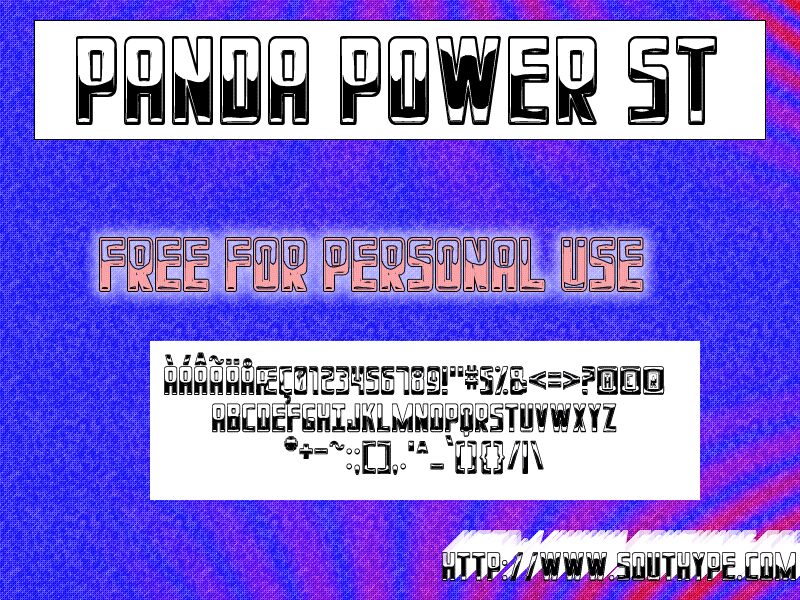
Panda Power St is a bold, eye-catching font that exudes an air of playfulness and confidence. Designed by Southtype, this decorative display typeface boasts a distinctive aesthetic, with its thick, condensed letterforms evoking a sense of strength and purpose. The angular, geometric shapes give the font a modern, almost industrial feel, while the rounded edges and playful curves lend it a touch of whimsy. Panda Power St is well-suited for a variety of applications, from charitable campaigns and school newsletters to independent YouTube videos and university presentations.
Its versatility lies in its ability to command attention without overwhelming the viewer, making it an excellent choice for projects that require a balance of professionalism and creativity.
Panda Power St